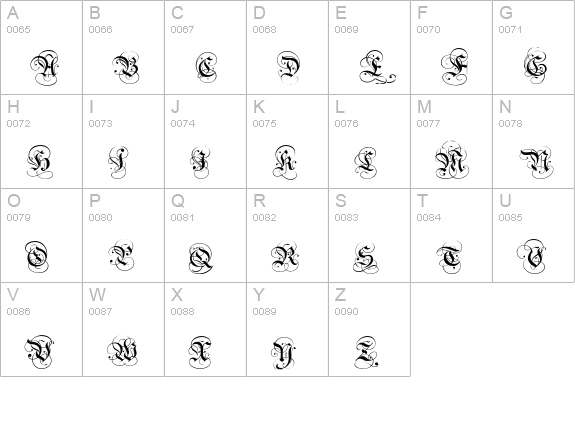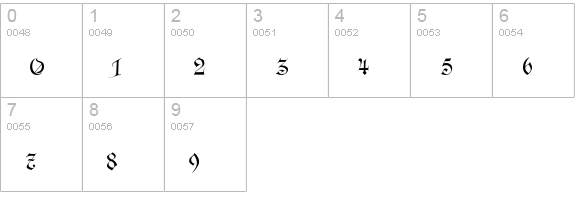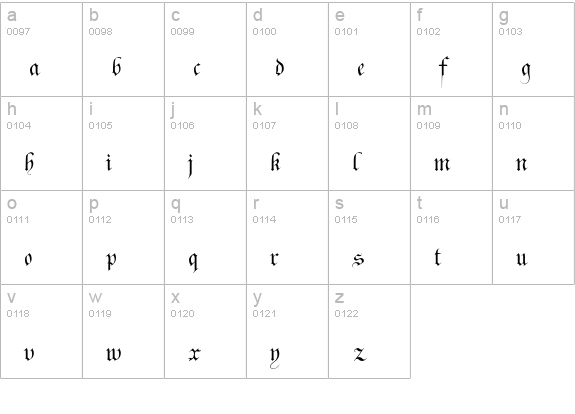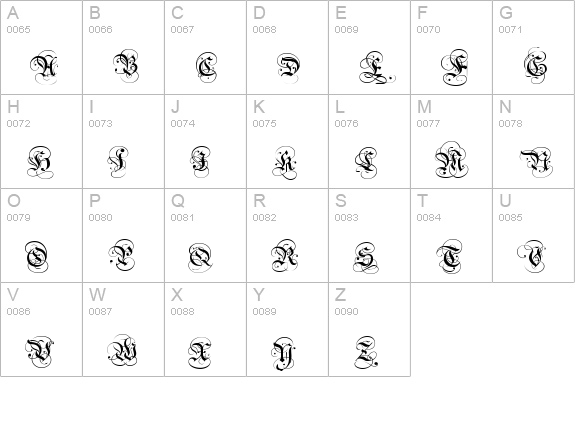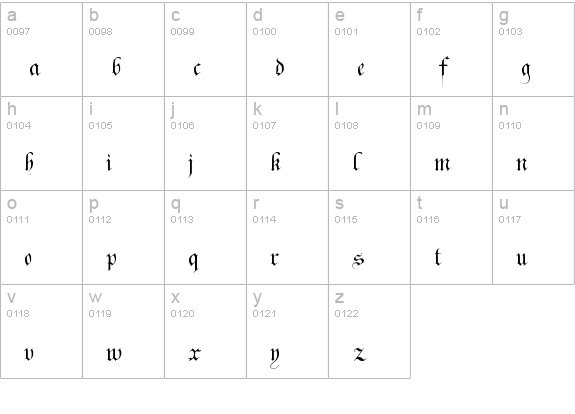
Carol Font Details
Carol font is a beautifully crafted typeface that exudes elegance and sophistication. With its delicate curves and graceful flourishes, this font is perfect for adding a touch of refinement to any design project. Whether you're creating wedding invitations, branding materials, or editorial layouts, Carol font will elevate your work to new heights. One of the best things about Carol font is that it is completely free to download. You can easily access this stunning typeface at FontsMarket.com, where you can download it and start using it in your projects right away. Don't miss out on the opportunity to enhance your designs with the timeless beauty of Carol font. Download it today and see the difference it can make in your work.